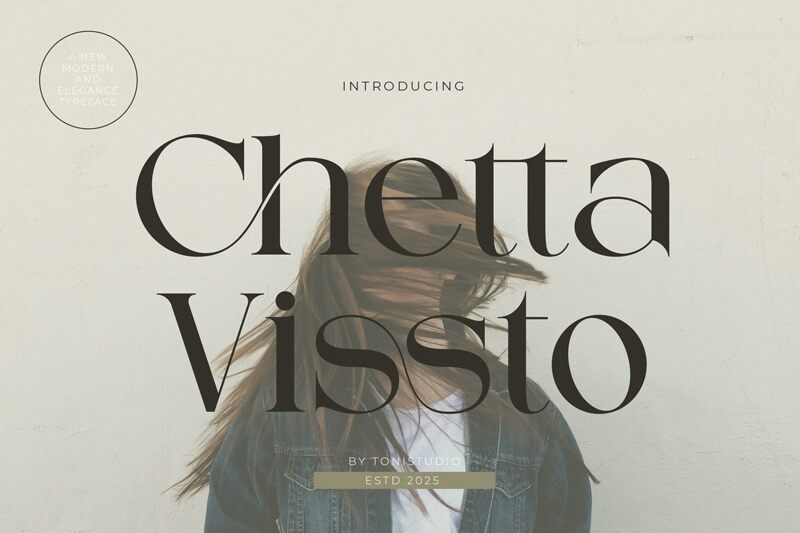
Chetta Vissto
Chetta Vissto font by ToniStudio is a free high-contrast serif font. Built on glossy stroke contrast with razor-thin hairlines and sculpted, blade-like serifs, it delivers that couture snap without turning brittle. The letters feel cut from lacquered paper—sleek, precise, and a touch theatrical—so headlines read with poise while still catching light like jewelry.
Using Chetta Vissto, you’ll get instant lift for fashion branding, beauty packaging, magazine mastheads, invitations, restaurant menus, and editorial pull quotes. This free font shines on logos and high-end posters where scale lets the drama breathe. Pair it with a calm grotesque sans for body copy, and add a hint of letterspacing at large sizes to let the curves glow.